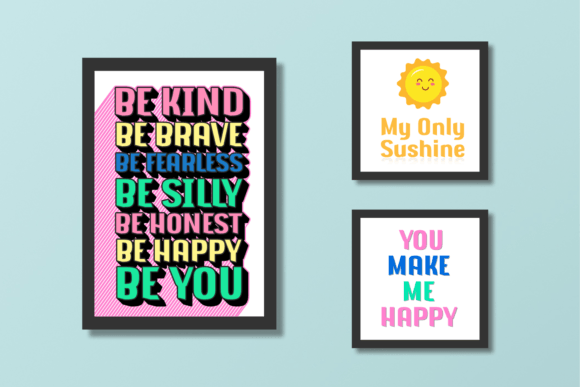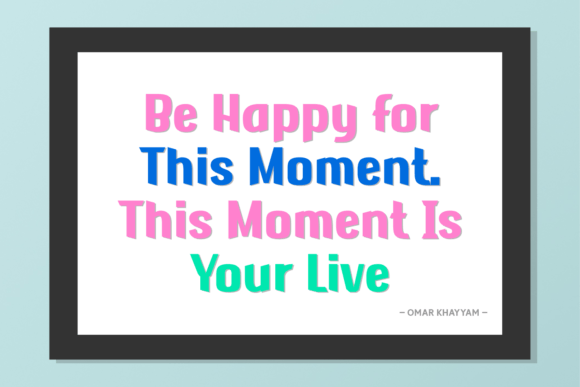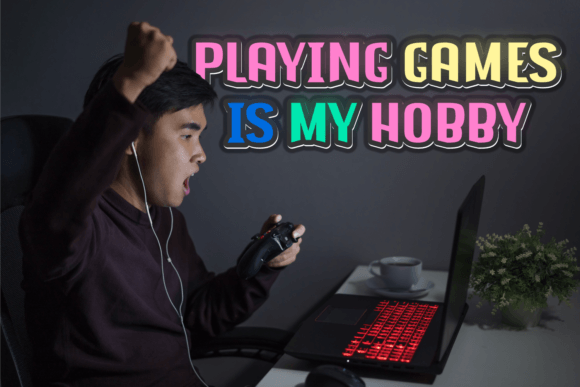
Introduction to Play Relax Font
Do you remember the feeling of freedom and imagination that came with doodling as a child? The way you could let your creativity run wild, without a care in the world? That’s the kind of feeling that the Play Relax Font can bring to your design projects.
This fun and friendly display font is a treasure trove of creative possibilities, waiting to be unleashed on your next project. With its unique and distinctive look, the Play Relax Font has the power to elevate any design creation, making it a valuable resource for designers looking to add a touch of personality to their work.
Key Features of Play Relax Font
- High-quality, professional font design for creative projects, ideal for use in graphic design, web design, and digital art.
- Perfect for use in creative projects that require a relaxed and calming atmosphere, such as wellness branding, yoga studios, and spa websites.
Honest Review: Play Relax Font
I recently had the chance to experiment with the Play Relax Font, a popular design resource that offers a unique and calming aesthetic. One of the things that caught my eye was the font’s high quality and crisp typography.
- ✨ I loved how versatile the font is, suitable for both digital and print designs.
- ⚠️ The font may not be ideal for projects that require a bold, attention-grabbing font.
- ⚠️ Some users may find the font’s calming aesthetic too subtle for certain design applications.
Overall, I was impressed with the Play Relax Font’s unique design and versatility. While it may not be suitable for every project, it’s a valuable resource for designers looking for a high-quality, free font that adds a touch of calm to their creative projects.